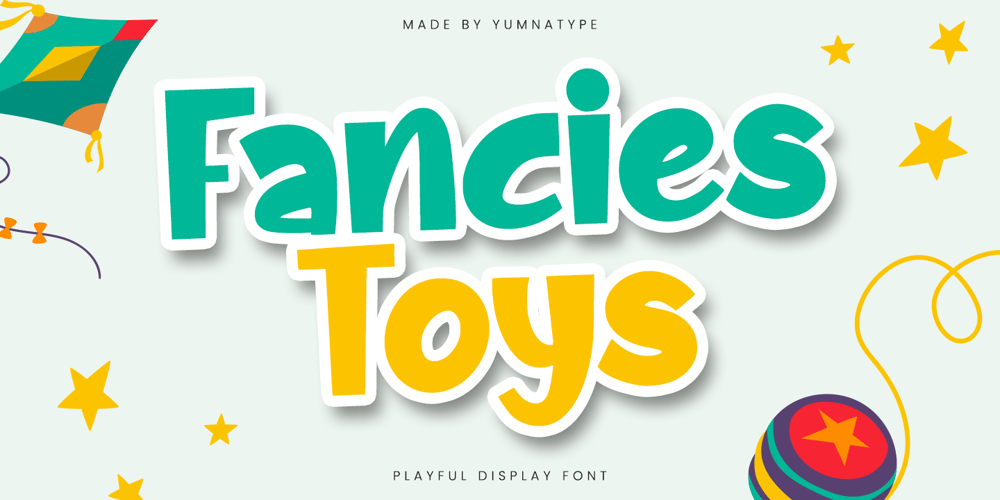
Fancies Toys
Fancies Toys font
Fancies Toys Font Family was designed by Donis Miftahudin and published by Yumna Type. Fancies Toys contains 1 styles and family package options. Fancies Toys is a playful display font that brings a sense of fun and excitement to your designs. Made in a thick weight, this font stands out with its bold and confident presence. The rounded shapes add a touch of friendliness, making it perfect for projects aimed at younger audiences or those seeking a whimsical touch. The quite visible contrast between strokes adds dynamic flair, enhancing readability while providing a lively and energetic feel. In addition, enjoy the features here.Features: Ligatures Multilingual Supports PUA Encoded Numerals and Punctuations Fancies Toys fits in headlines, logos, posters, flyers, branding materials, print media, editorial layouts, and many more designs. Find out more ways to use this font by taking a look at the font preview.Thanks for purchasing our fonts. Hopefully, you have a great time using our font. Feel free to contact us anytime for further information or when you have trouble with the font. Thanks a lot and happy designing.